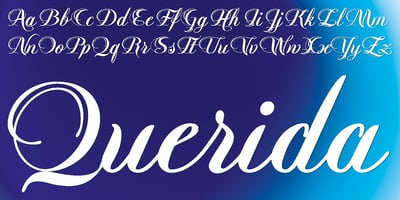
Querida
Querida font
Querida Font Family was designed by Gert Wiescher and published by Autographis. Querida contains 1 styles and family package options. Querida is an elaborate, elegant, constructed script with intertwining swashes and a timeless appearance. It will serve you well for all kind of high class package design challenges.